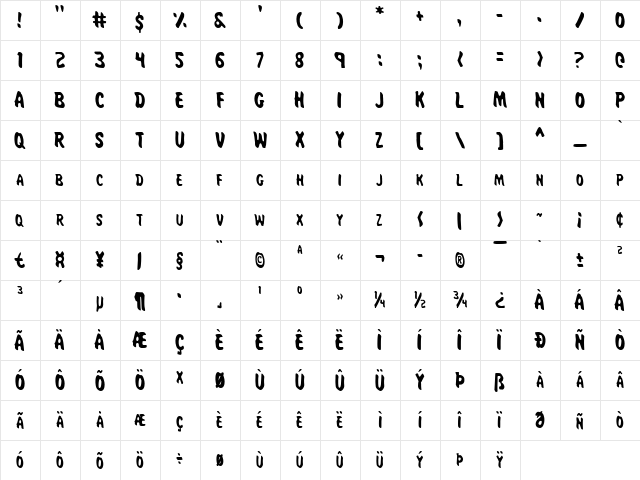
Miss Amanda Jones Cond Cond
Design Context for Miss Amanda Jones Cond Typeface
Miss Amanda Jones Cond offers clean, dependable letterforms without strong stylistic allegiance, making it a practical choice for designers who need flexibility. Its narrow stance lets it pack a punch even in space-constrained designs.